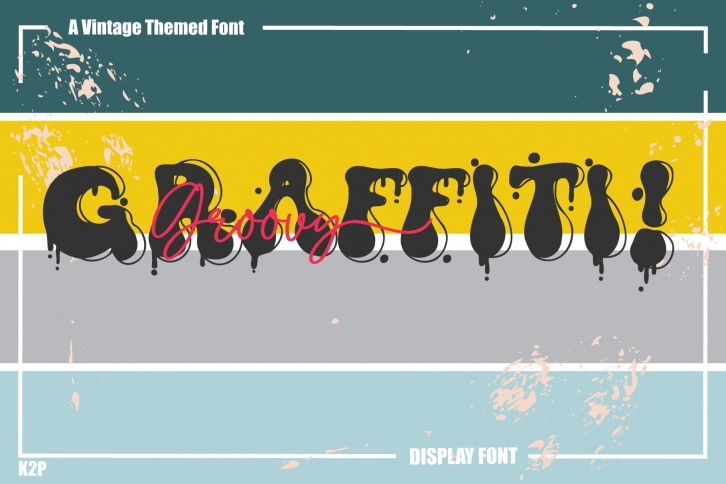
Groovy Graffiti is a fun, retro, and whimsical display font. Fall in love with its incredibly distinct and timeless style and use it to create spectacular designs!